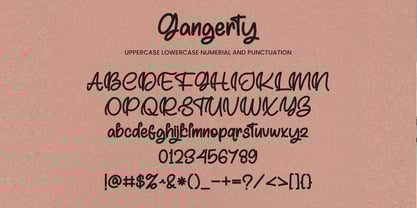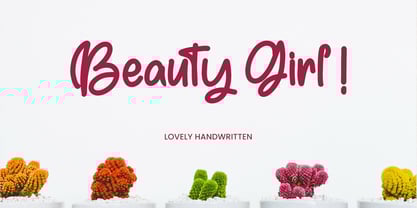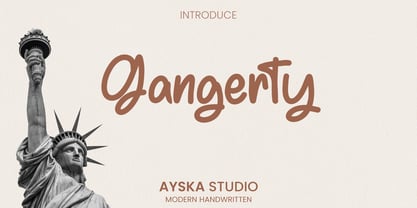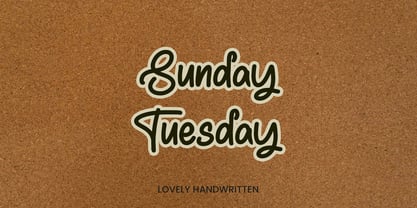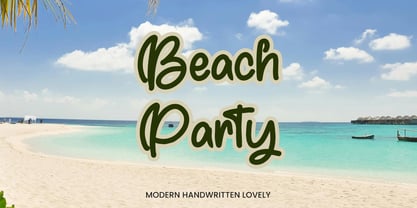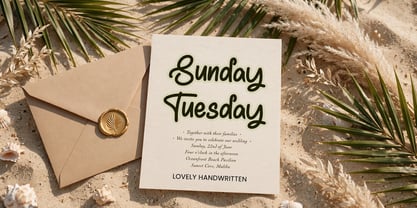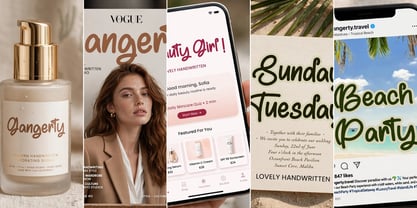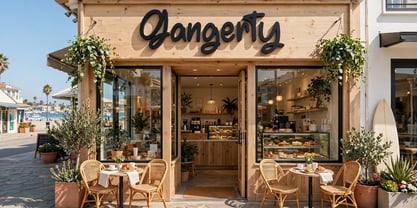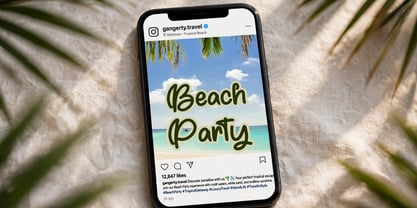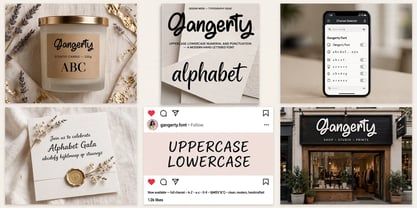
Gangerty
by Ayska
The Gangerty Font Family was designed by Dhoni Trihatmoko and published by Ayska. Gangerty contains 1 styles. More about this family
Gangerty font is an American retro display font was designed with old logos and classic typography in mind. Showcase your unique style with a heart-warming hand drawn font perfect for creative projects like packaging, wall art, greeting cards and branding. A clean handwriting font with consistent, bold neat strokes and casual touch. It is perfect for logos branding, apparel, elegant websites, magazine, wedding invitation, social media posts or simply to use.
Designers: Dhoni Trihatmoko
Foundry: Ayska